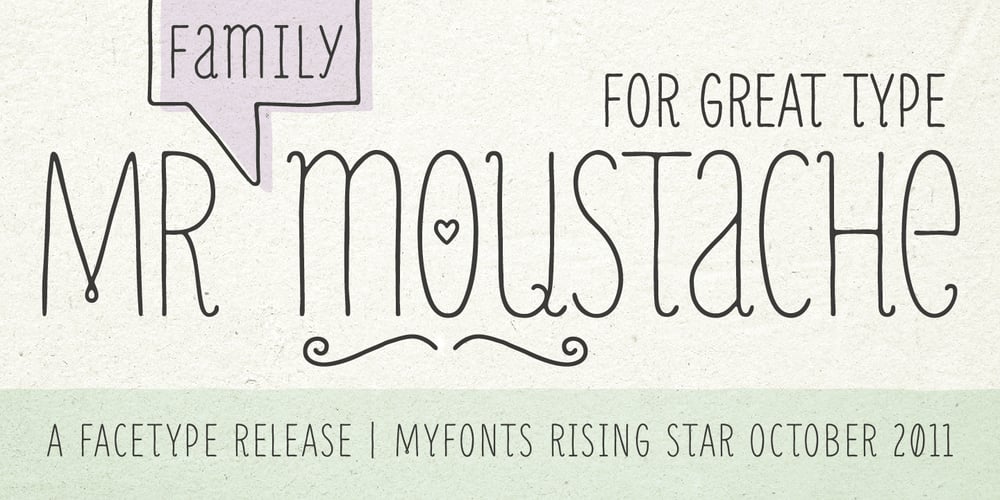
Mr Moustache Font Family was designed by Georg Herold-Wildfellner and published by FaceType. Mr Moustache contains 4 styles and family package options. Handmade Mr Moustache™ is designed for Great Type. · Extra thin letters, condensed and with a handwritten touch, Mr Moustache gives a warm and friendly feeling to your layout. Mix upper- and lowercase letters according to your own liking. Furthermore, choose between a hand-drawn Unicase and an almost Unicase appearance. Use Mr Moustache Display for headlines and anything BIG. Use Mr Moustache Text for small type sizes or large volumes of text. · Mr Moustache is accompanied by frames, ornaments and dingbats in regular and solid, that can be layered for multicolored effects, providing endless design-possibilities. Please download MrMoustacheAccessories.pdf to get a complete overview. If you prefer the document in Indesign, please send an email to office@buerofliegenpilz.at · Mr Moustache offers OpenType features, including contextual alternates and stylistic sets. The font family works best with frame-based layout programs that support full OpenType functionality. · For Mr Moustache Frames please note: The glyph preview in your design application may be a bit confusing due to the size of the “letters”. Please download the MrMoustacheAccessories.pdf which shows all possible frame parts. Here you can easily copy and paste all the parts you need. · View other fonts from Georg Herold-Wildfellner: Sofa Serif | Sofa Sans | Mila Script Pro | Pinto | Supernett | Mr Moustache | Aeronaut | Ivory | Weingut · Language Report for MrMoustache / 175 languages supported: Abenaki, Afaan Oromo, Afar, Afrikaans, Albanian, Alsatian, Amis, Anuta, Aragonese, Aranese, Aromanian, Arrernte, Arvanitic, Asturian, Aymara, Basque, Bikol, Bislama, Bosnian, Breton, Cape Verdean, Catalan, Cebuano, Chamorro, Chavacano, Chickasaw, Cimbrian, Cofan, Corsican, Croatian, Czech, Danish, Dawan, Delaware, Dholuo, Drehu, Dutch, English, Estonian, Faroese, Fijian, Filipino, Finnish, Folkspraak, French, Frisian, Friulian, Galician, Genoese, German, Gooniyandi, Greenlandic, Guadeloupean, Gwichin, Haitian Creole, Han, Hiligaynon, Hopi, Hungarian, Icelandic, Ido, Ilocano, Indonesian, Interglossa, Interlingua, Irish, Istroromanian, Italian, Jamaican, Javanese, Jerriais, Kala Lagaw Ya, Kapampangan, Kaqchikel, Karelian, Kashubian, Kikongo, Kinyarwanda, Kiribati, Kirundi, Klingon, Ladin, Latin, Latino Sine, Lojban, Lombard, Low Saxon, Luxembourgish, Makhuwa, Malay, Manx, Marquesan, Meglenoromanian, Meriam Mir, Mohawk, Moldovan, Montagnais, Montenegrin, Murrinhpatha, Nagamese Creole, Ndebele, Neapolitan, Ngiyambaa, Norwegian, Novial, Occidental, Occitan, Oshiwambo, Ossetian, Palauan, Papiamento, Piedmontese, Polish, Portuguese, Potawatomi, Qeqchi, Quechua, Rarotongan, Romanian, Romansh, Rotokas, Sami Lule, Sami Southern, Samoan, Sango, Saramaccan, Sardinian, Scottish Gaelic, Serbian, Seri, Seychellois, Shawnee, Shona, Sicilian, Silesian, Slovak, Slovenian, Slovio, Somali, Sorbian Lower, Sorbian Upper, Sotho Northern, Sotho Southern, Spanish, Sranan, Sundanese, Swahili, Swazi, Swedish, Tagalog, Tetum, Tok Pisin, Tokelauan, Tshiluba, Tsonga, Tswana, Tumbuka, Tzotzil, Uzbek, Venetian, Vepsian, Volapuk, Voro, Walloon, Waraywaray, Warlpiri, Wayuu, Wikmungkan, Wiradjuri, Xhosa, Yapese, Yindjibarndi, Zapotec, Zulu, Zuni